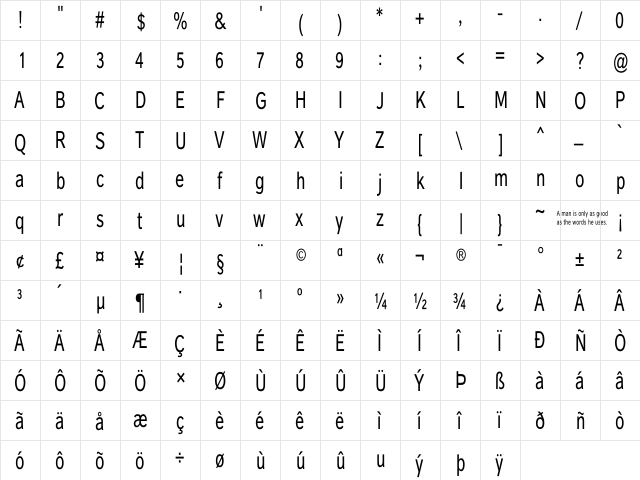
Carnova Narrow Regular
Design Context for Carnova Narrow Typeface
Carnova Narrow takes a measured approach to typography — its balanced proportions and neutral character make it a reliable workhorse for both digital and print work. Its narrow stance lets it pack a punch even in space-constrained designs.